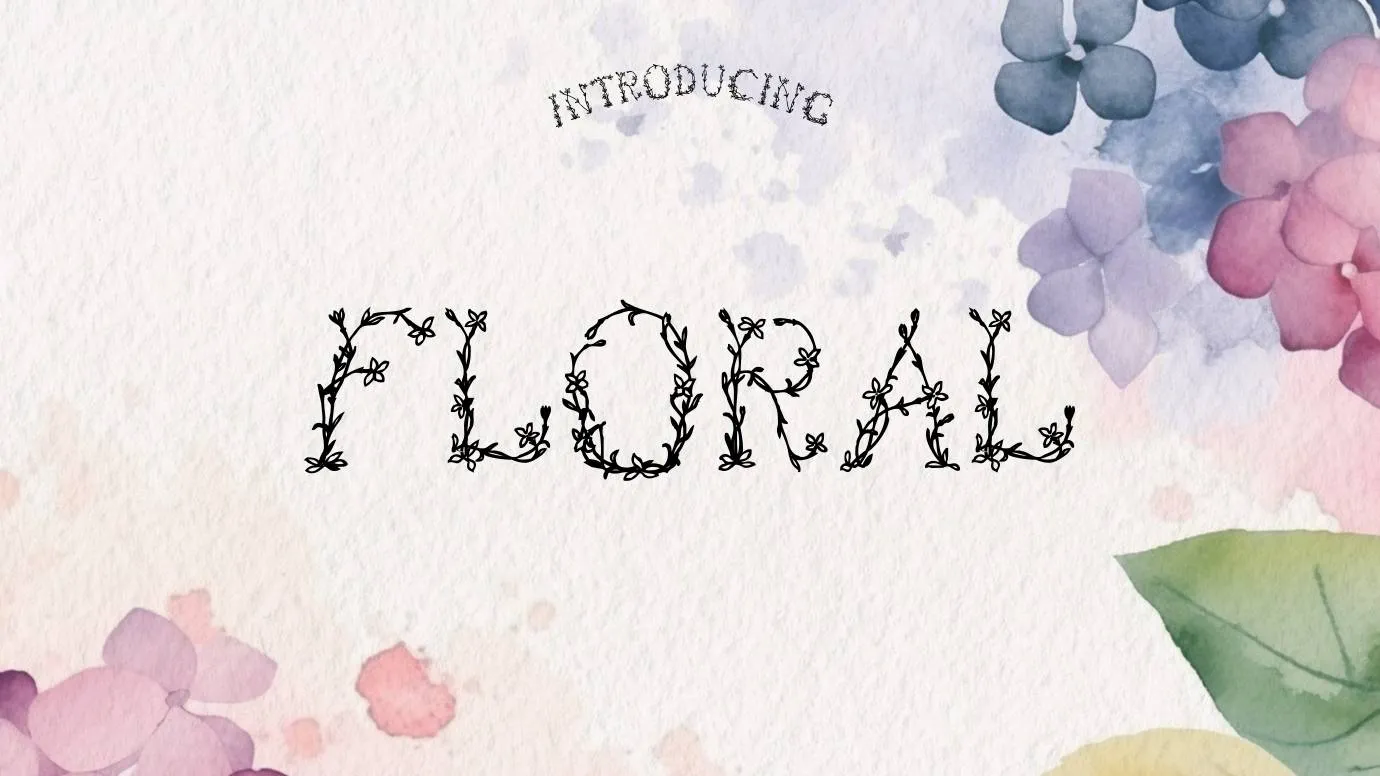
Floral Font Family is categorized as the category of Decorative Fancy fonts and is attainable with decorative characters. The manufacturer behind the creation of this typeface is Manfred Klein.
Floral Font
NameFloral Font
DesignerManfred Klein